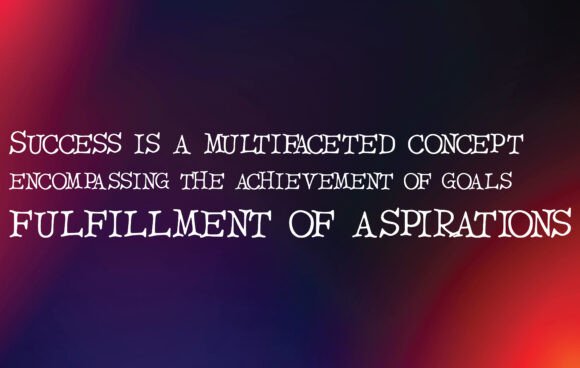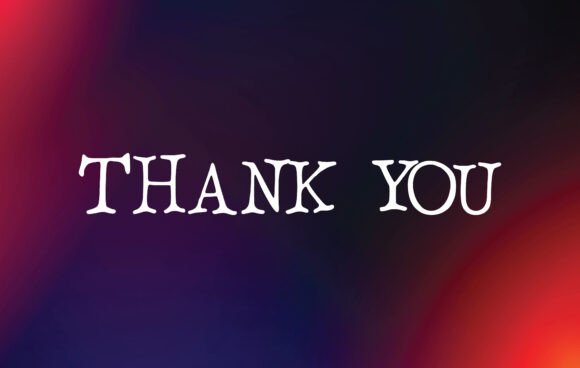
Discover the Elegance of Elliot Font: Elevate Your Designs to New Heights
Are you on the hunt for a font that can transform your creative ideas into stunning visual masterpieces? Look no further than the Elliot font. This gorgeous typeface is designed to take your designs to the next level, making it the perfect choice for crafters and designers alike. In this article, we’ll dive into the world of Elliot font, exploring its features, benefits, and uses, and why it’s an excellent addition to your font collection.
The Beauty of Elliot Font
Elliot font is a lovely and beautiful typeface that boasts a unique blend of elegance and sophistication. Its carefully crafted letters are designed to make a lasting impression, making it ideal for creating eye-catching logos, branding materials, and quotes. Whether you’re working on a personal project or a client’s, Elliot font is sure to impress.
One of the standout features of Elliot font is its versatility. It can be used in a variety of design contexts, from modern and minimalist to vintage and ornate. This flexibility makes it an excellent choice for designers who want to experiment with different styles and aesthetics.
Why Choose Elliot Font?
So, what sets Elliot font apart from other typefaces? Here are just a few reasons why it’s a top choice among designers and crafters:
- Unique and Memorable: Elliot font’s distinctive design ensures that your creations will stand out from the crowd and leave a lasting impression on your audience.
- Elegant and Sophisticated: This font exudes refinement and poise, making it perfect for high-end branding, luxury products, and premium services.
- Highly Versatile: Elliot font can be used in a wide range of design applications, from digital media to print materials.
- Easy to Read: Despite its elegant design, Elliot font remains highly legible, even at smaller font sizes.
Using Elliot Font in Your Designs
Now that we’ve explored the benefits of Elliot font, let’s discuss some practical ways to incorporate it into your designs:
Logo Design
Elliot font is an excellent choice for creating logos that require a touch of sophistication and elegance. Its unique design ensures that your logo will stand out and be easily recognizable.
Branding and Advertising
Use Elliot font to create stunning branding materials, such as business cards, brochures, and ad campaigns. Its versatility and legibility make it perfect for a wide range of applications.
Quote and Typography Design
Elliot font is also ideal for creating beautiful quote designs, social media graphics, and typography-focused art pieces. Its elegant design adds a touch of sophistication to any text.
Tips for Getting the Most Out of Elliot Font
To maximize the impact of Elliot font, keep the following tips in mind:
- Experiment with Font Sizes: Elliot font looks great at various font sizes, so don’t be afraid to experiment and find the perfect size for your design.
- Pair it with Other Fonts: Combine Elliot font with other typefaces to create visually interesting and dynamic designs.
- Pay Attention to Kerning: Make sure to adjust the kerning to ensure that the letters flow smoothly and elegantly.
In conclusion, Elliot font is a stunning typeface that has the potential to elevate your designs to new heights. Its unique blend of elegance and sophistication makes it perfect for creating eye-catching logos, branding materials, and quotes. With its versatility, legibility, and beauty, Elliot font is an excellent addition to any designer’s font collection. So why wait? Download Elliot font today and start creating stunning designs that leave a lasting impression.